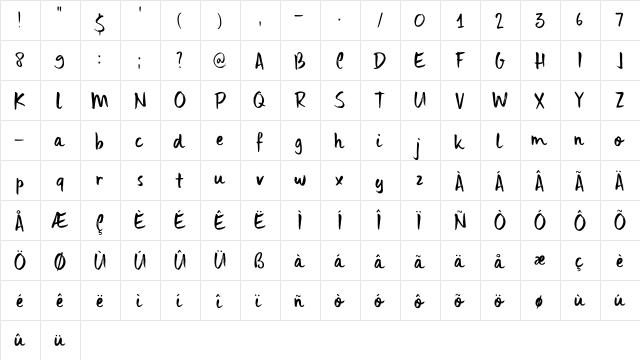
DK Uncle Edward Regular
Design Context for DK Uncle Edward Typeface
DK Uncle Edward is a composed and adaptable typeface that performs quietly and consistently across a wide range of design contexts.
Pro Tip: Pair DK Uncle Edward with a font of contrasting weight or personality to build a more expressive typographic hierarchy.